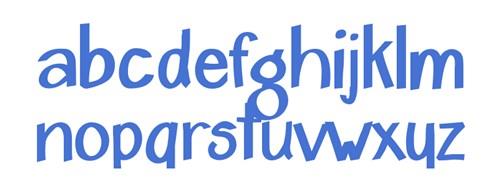
Unicorn Creatives is happy to present Ice Age Font Embroidery Font - Whimsical and Playful Handwriting - PES, DST & 8 formats machine embroidery font which has The playful machine embroidery font brings a textured, three-dimensional look to projects on fabric like tees and bags. Ideal for creative individuals seeking a unique visual flair. Available in PES, DST, and 8 additional formats. included. If you would like to view more embroidery fonts and alphabets please search our embroidery fonts page.